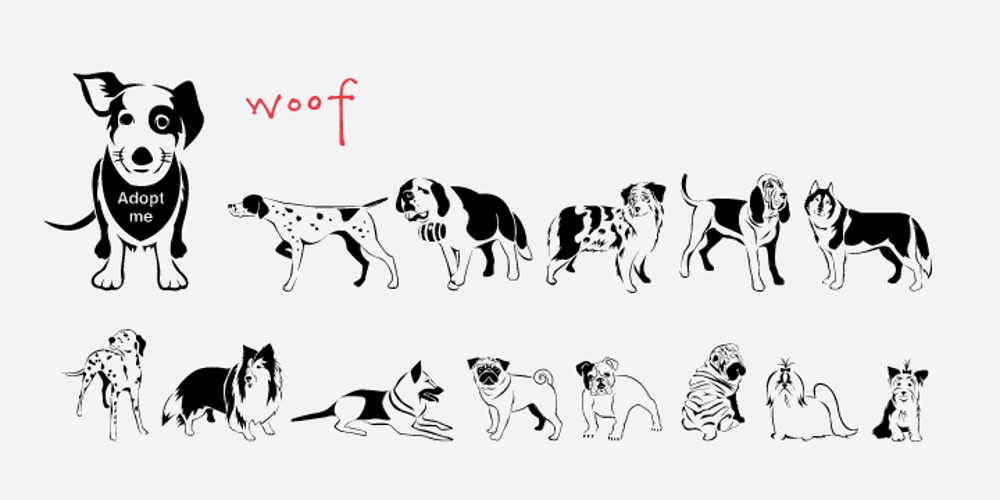
Woof
Woof font
Woof Font Family was designed by Rae Kaiser, Nancy Vala and published by Outside the Line. Woof contains 1 styles and family package options. Woof! A font full of the best-loved dogs plus one mutt. Distinct lines convey the character and heart of each breed.